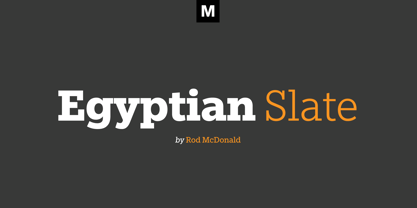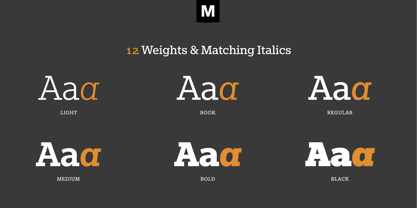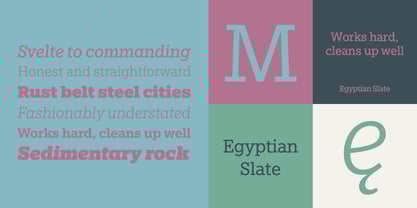
Egyptian Slate™
Egyptian Slate is a solid and stylish slab serif design that will look superb in the spotlight of your choosing. Available in six weights – from a svelte light to a commanding black – each upright member of the Egyptian Slate family has a complementary italic. Egyptian Slate fonts are available as either OpenType Std or OpenType Pro fonts; the later options offers an extended character set that supports most Central European and many Eastern European languages.
Concepteurs: Rod McDonald